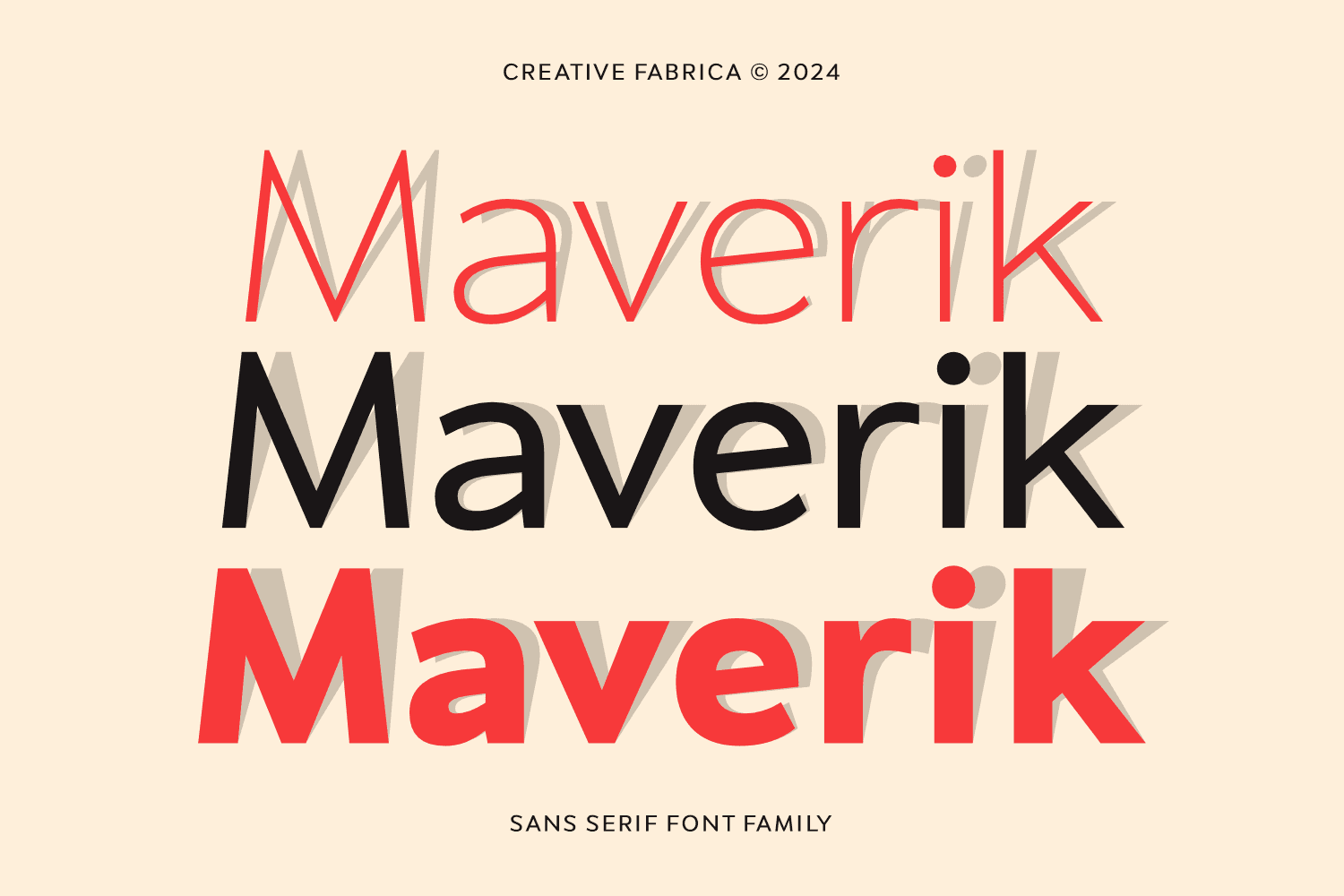
Discovering the Maverik Font: A Sophisticated Sans Serif Choice In the ever-evolving landscape of typography, the Maverik font emerges as a standout contender within the sans serif category, offering a fresh and sophisticated alternative to beloved c...